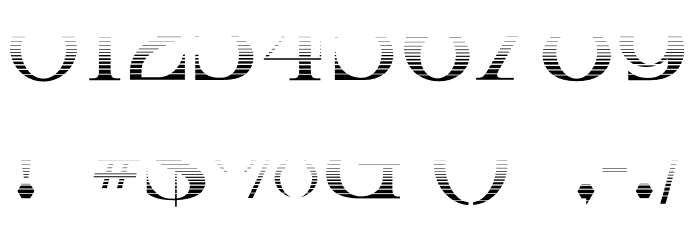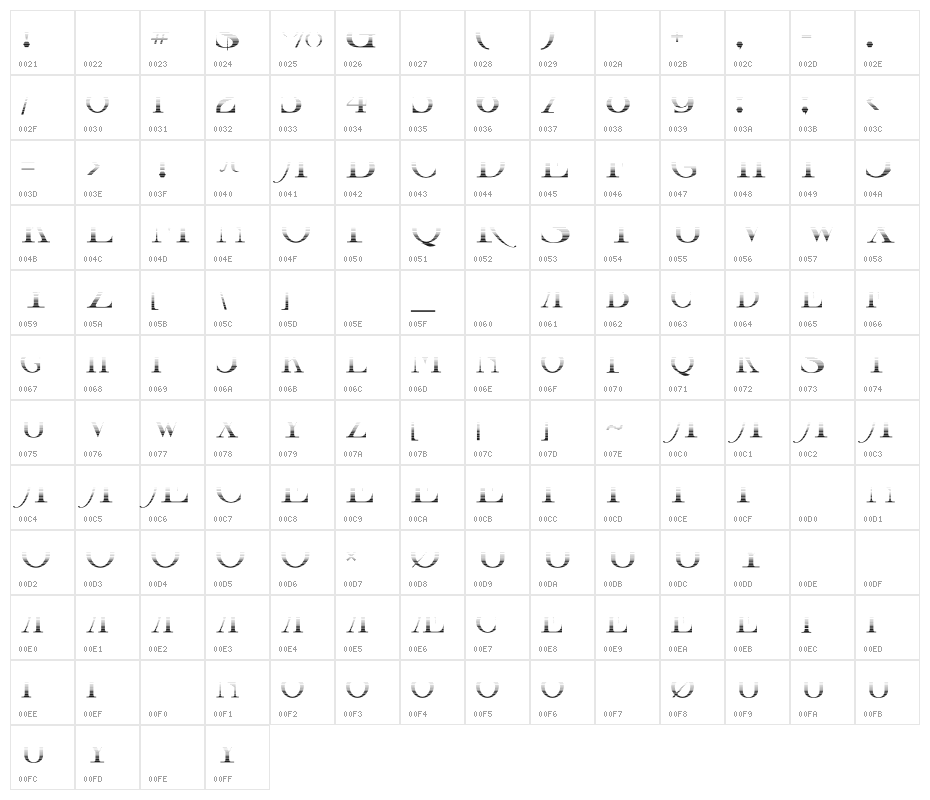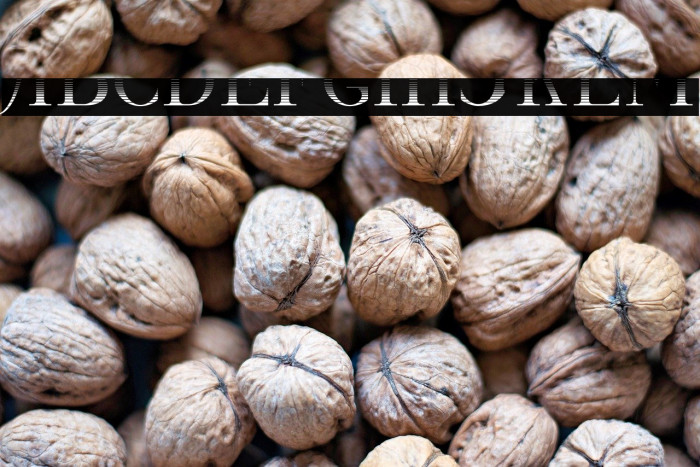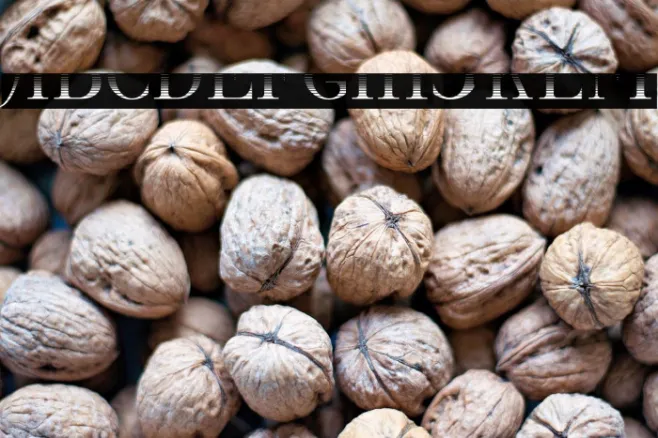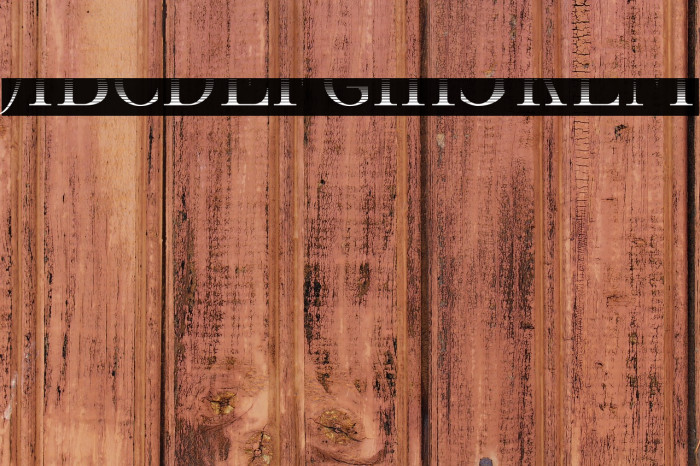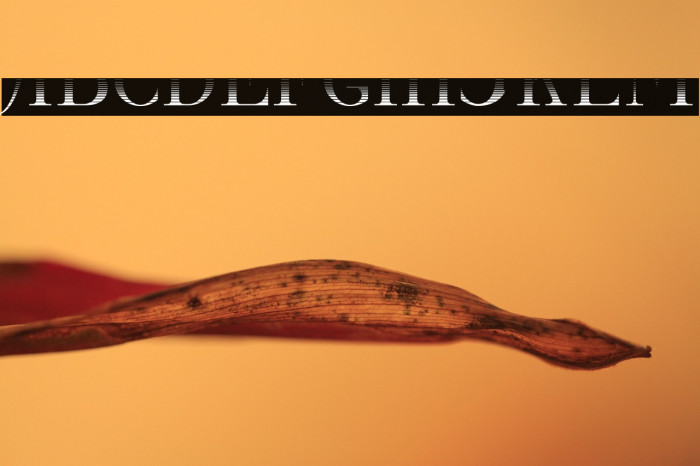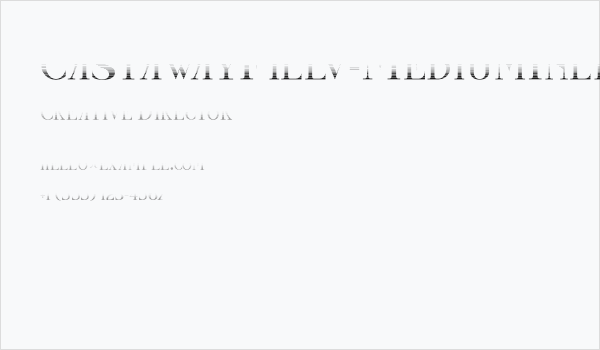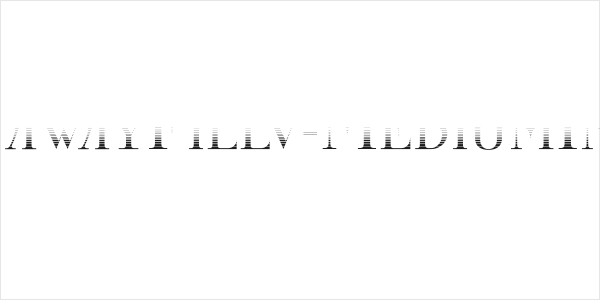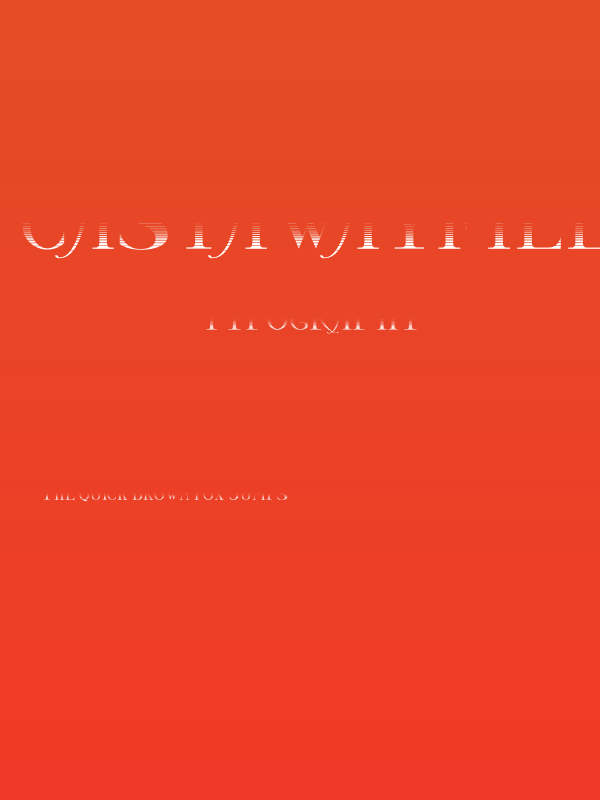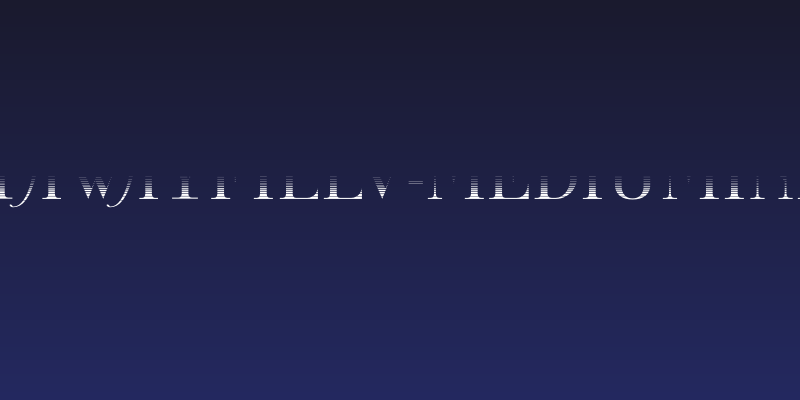
CastawayFillv-MediumInline Font
CastawayFillv-MediumInline Description
This font features a unique inline design with a medium weight, creating a striking visual effect. The characters are bold and have a decorative style, with horizontal lines running through each letter, adding texture and depth. The uppercase and lowercase letters maintain a consistent style, while the numerals and special characters complement the overall aesthetic. The font's design is both modern and artistic, making it suitable for creative projects that require a distinctive and eye-catching typeface.
| Proposed Projects | Ideal for posters, branding, headlines, and artistic projects that require a bold statement. |